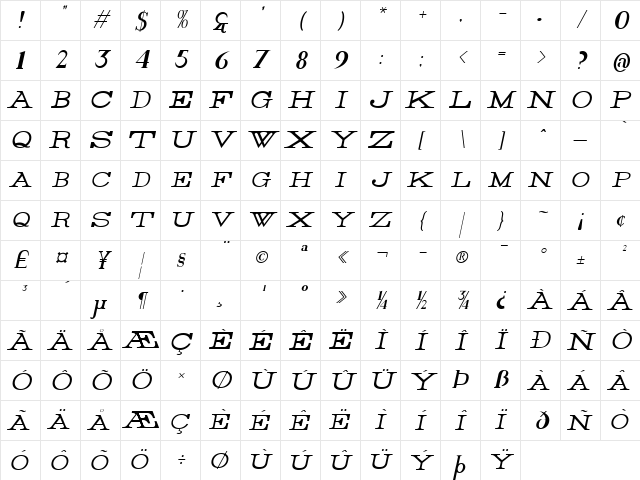
Rider Light Italic Free Font
Rider Light Italic
Foundry: M￿ Greb￿
Designer: M￿ Greb￿
Design Context for Rider
Rider is a composed and adaptable typeface that performs quietly and consistently across a wide range of design contexts. The slanted form adds forward momentum and visual energy. Its slender proportions lend an understated elegance to any composition.
Who designed the Rider Light Italic font?